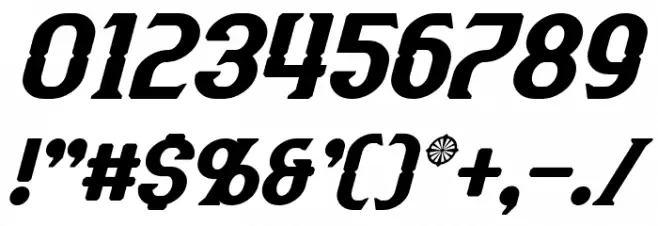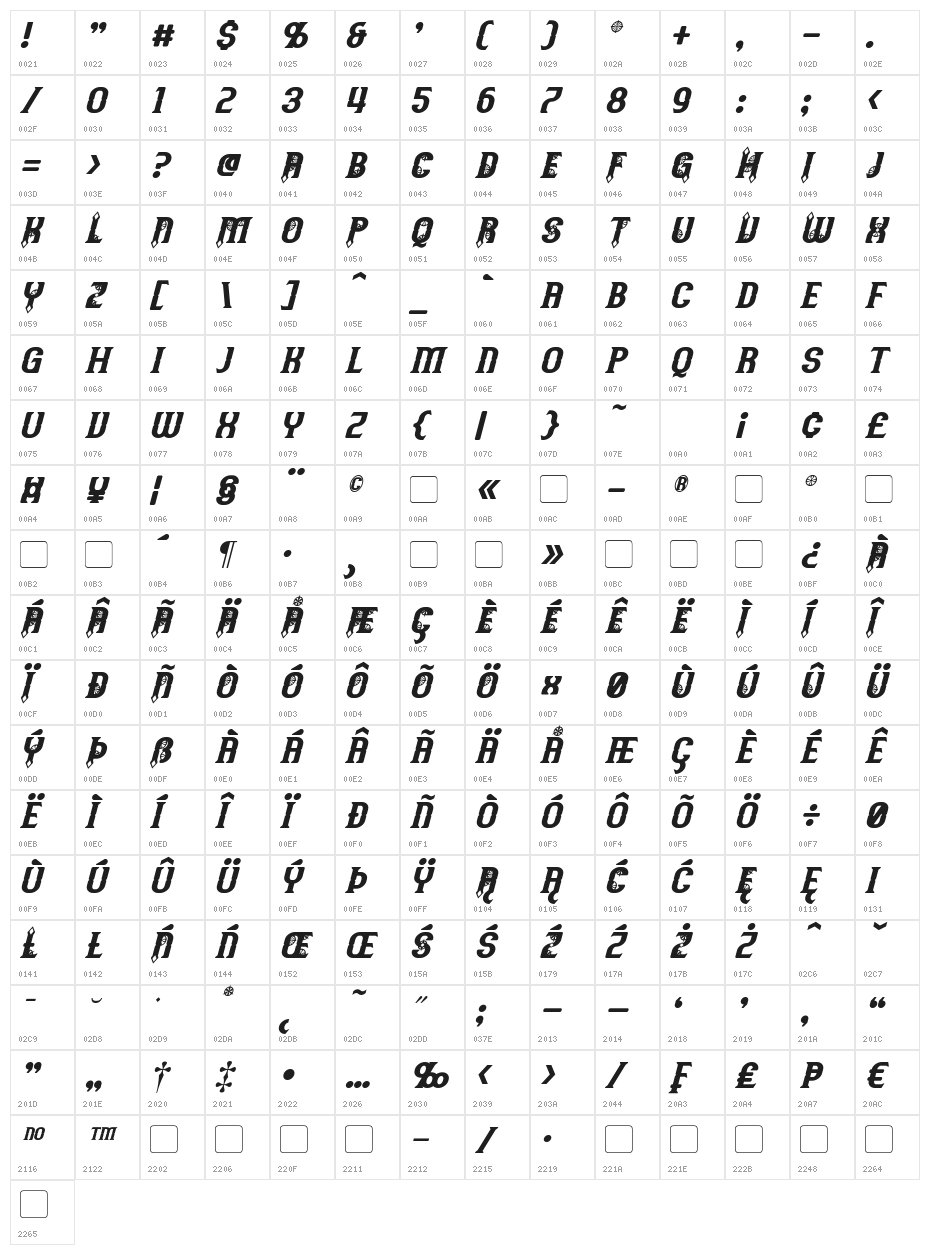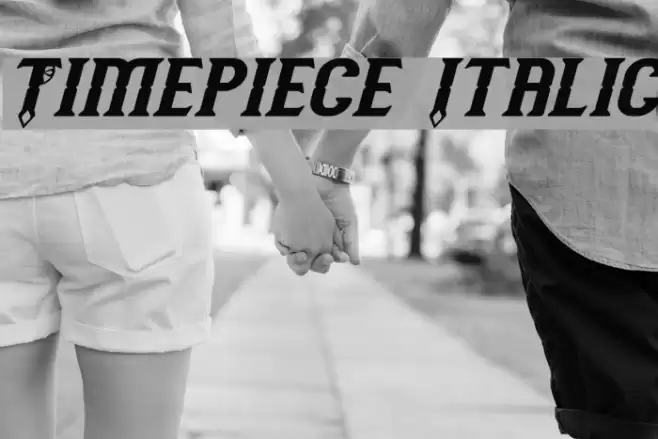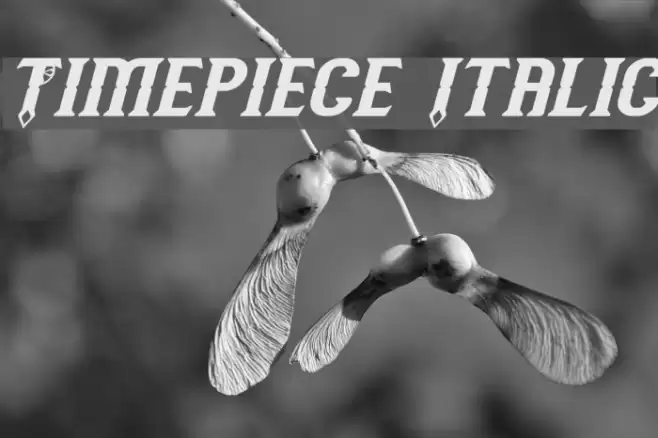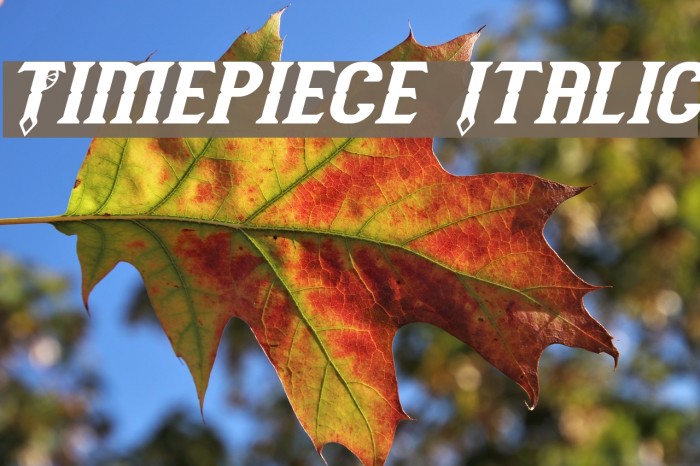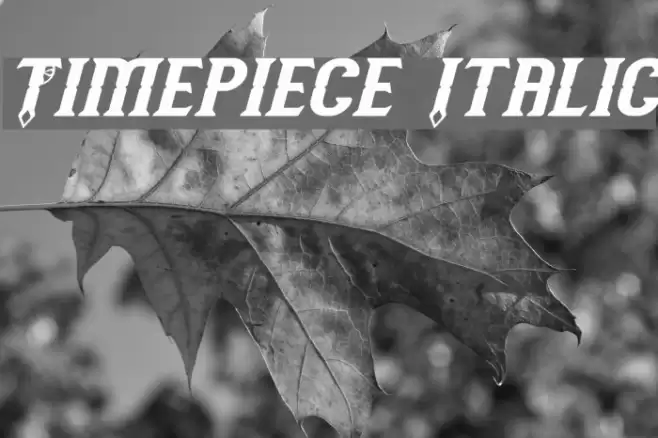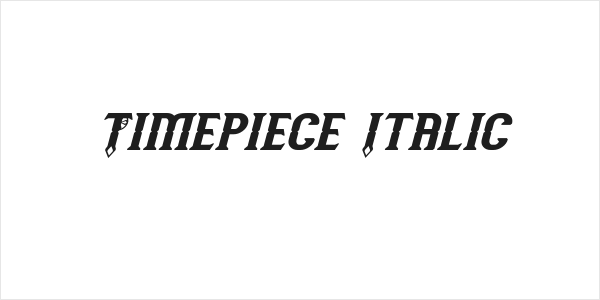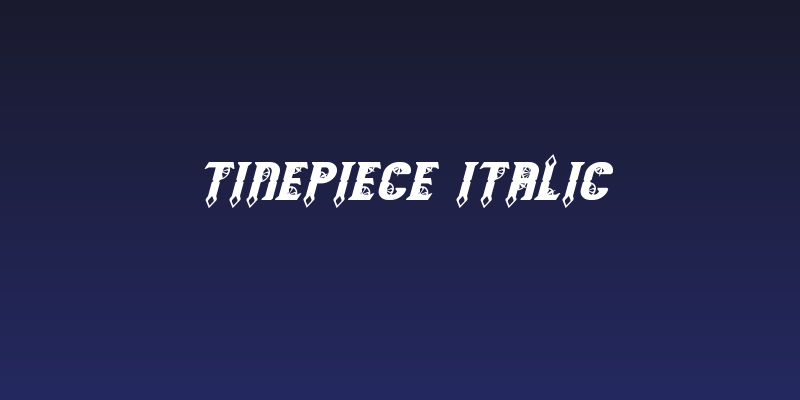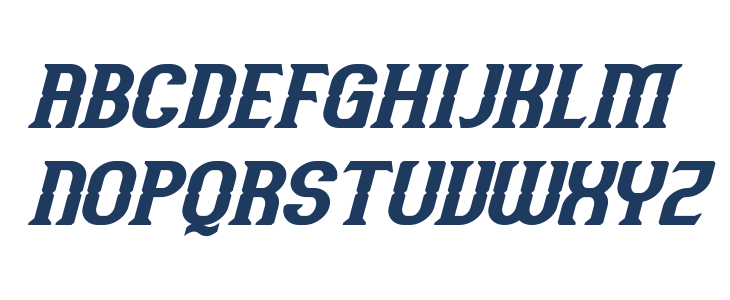
Timepiece Italic Font
Timepiece Italic Description
This font features a bold and dynamic design with a distinct italic slant, giving it a sense of motion and energy. The characters are adorned with unique diamond-shaped embellishments, adding a decorative flair that makes each letter stand out. The uppercase and lowercase letters maintain a consistent style, with sharp angles and a strong presence. The numerals are equally bold, ensuring readability while maintaining the font's overall aesthetic. Special characters are creatively integrated, enhancing the font's versatility for various design needs.
| Proposed Projects | Ideal for branding, posters, and headlines where a strong, decorative impact is desired. |